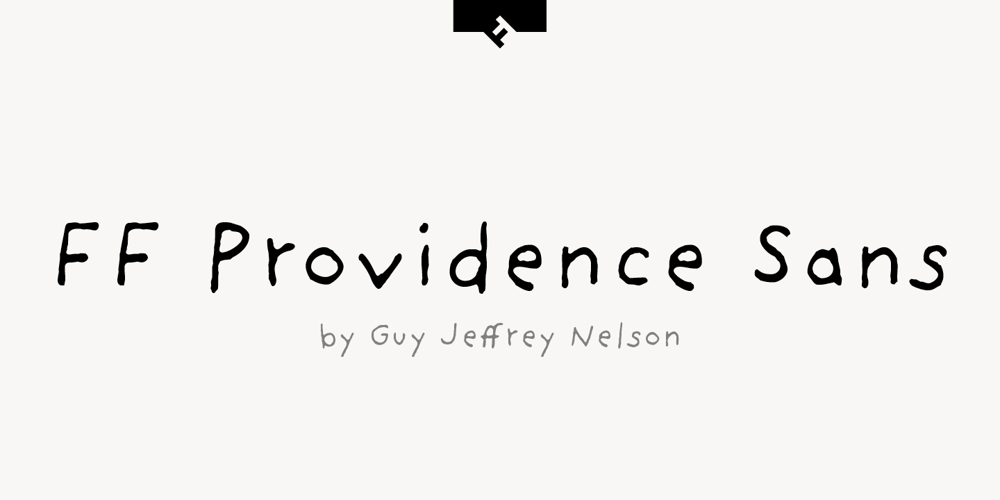
FF Providence Sans Font Family was designed by Guy Jeffrey Nelson and published by FontFont. FF Providence Sans contains 2 styles and family package options. American type designer Guy Jeffrey Nelson created this script FontFont in 1994. The family contains 2 weights: Regular and Bold and is ideally suited for advertising and packaging, festive occasions, poster and billboards as well as web and screen design. FF Providence Sans provides advanced typographical support with features such as ligatures, alternate characters, case-sensitive forms, and stylistic alternates. It comes with proportional lining figures. This FontFont is a member of the FF Providence super family, which also includes FF Providence.